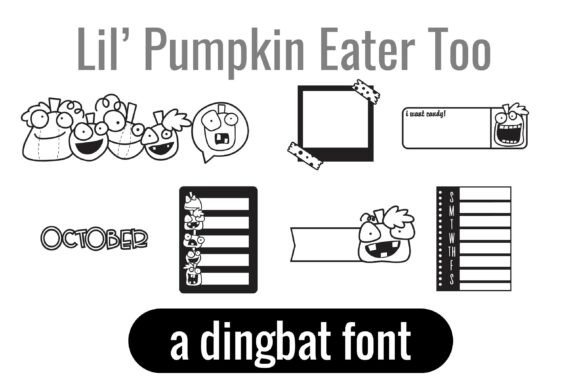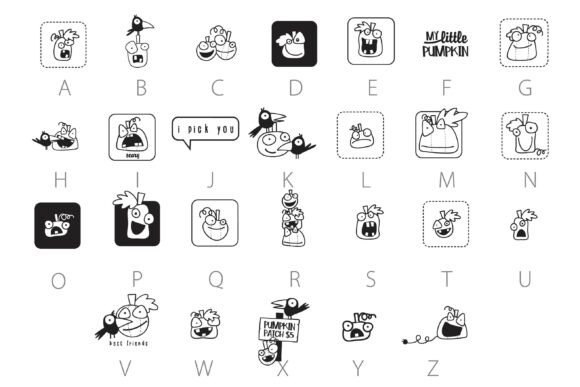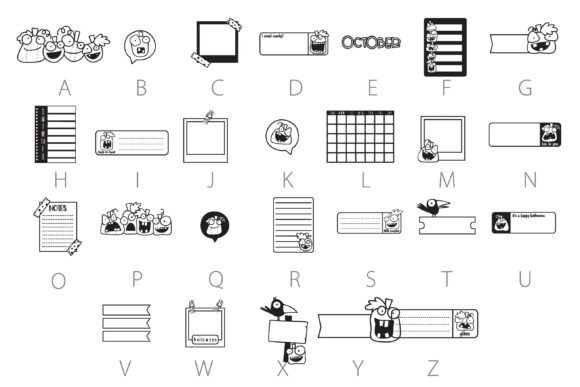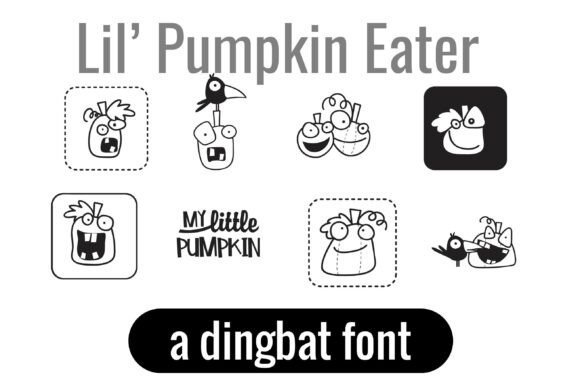
Introduction to Lil’ Pumpkin Eater Dingbats Font
Quirky, expressive, and full of personality, Lil’ Pumpkin Eater is a wildly fun dingbat font duo featuring a gang of goofy pumpkins and their feathery sidekick.
This set includes two fonts bursting with character β€” one focused on silly pumpkin faces and interactions, and the other loaded with planner-ready extras and Halloween-themed graphics that are perfect for creative projects of all kinds In the main Lil’ Pumpkin Eater font, you’ll find a wild bunch of pumpkins with big bug eyes, goofy grins, missing teeth, and chaotic charm.
Why Choose Lil’ Pumpkin Eater Dingbats Font?